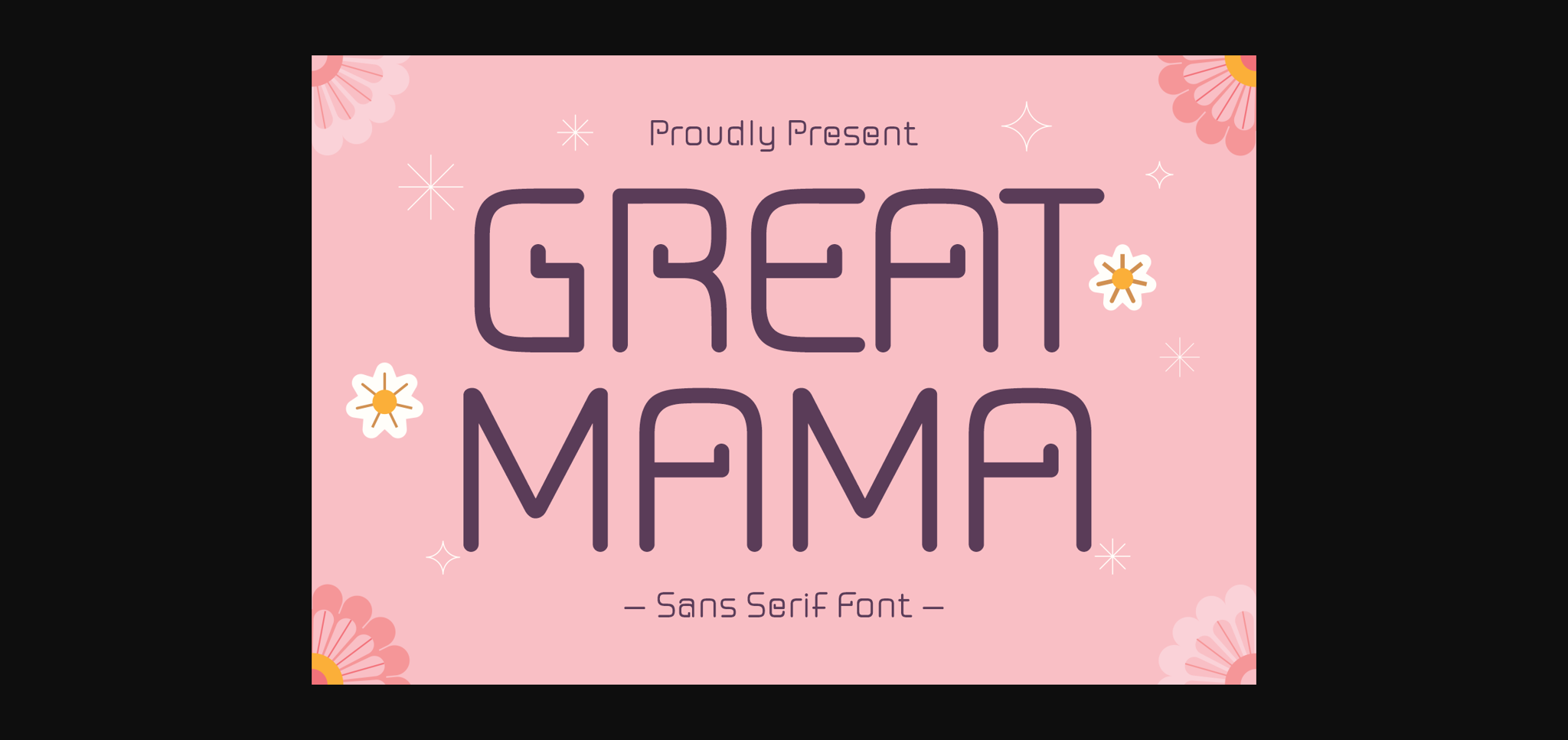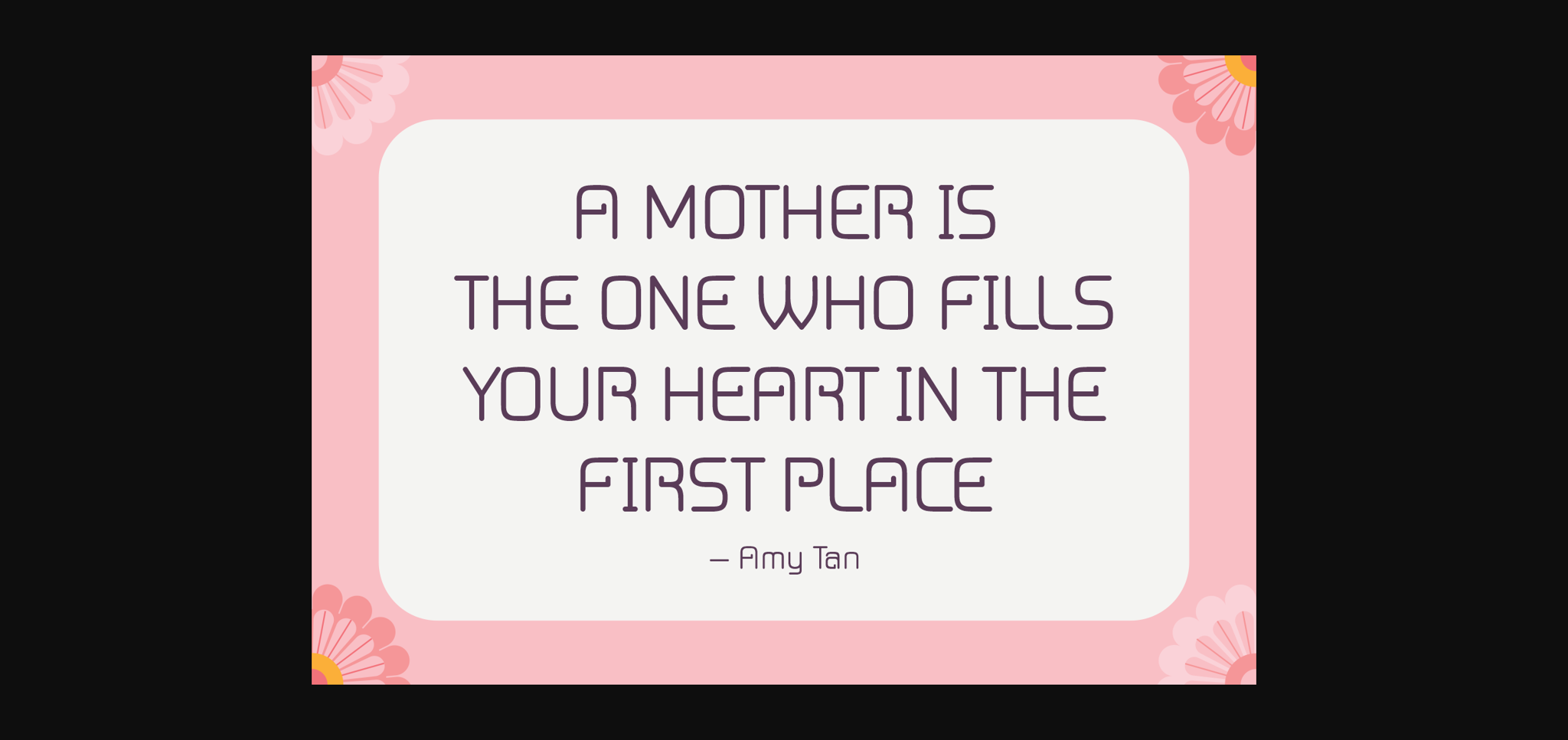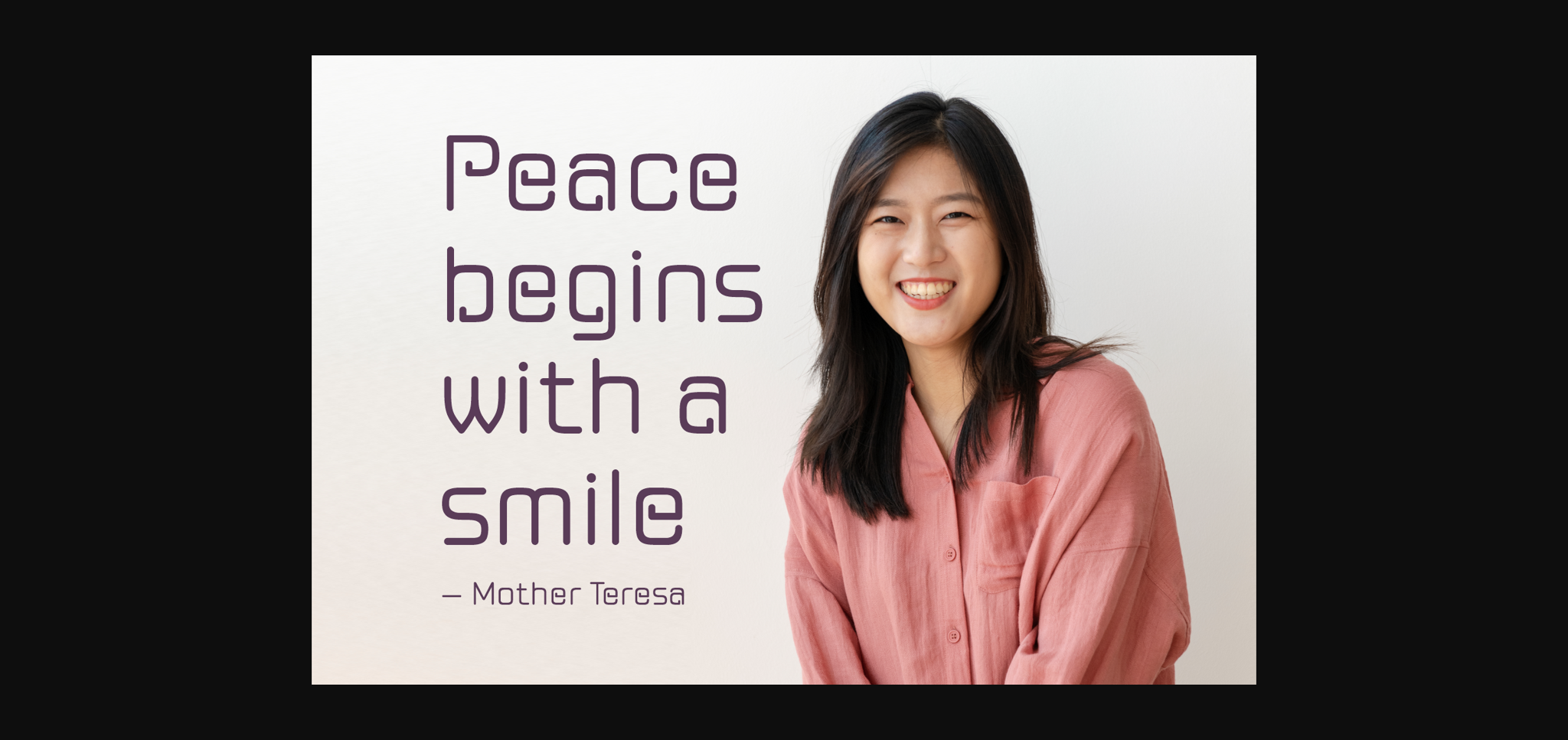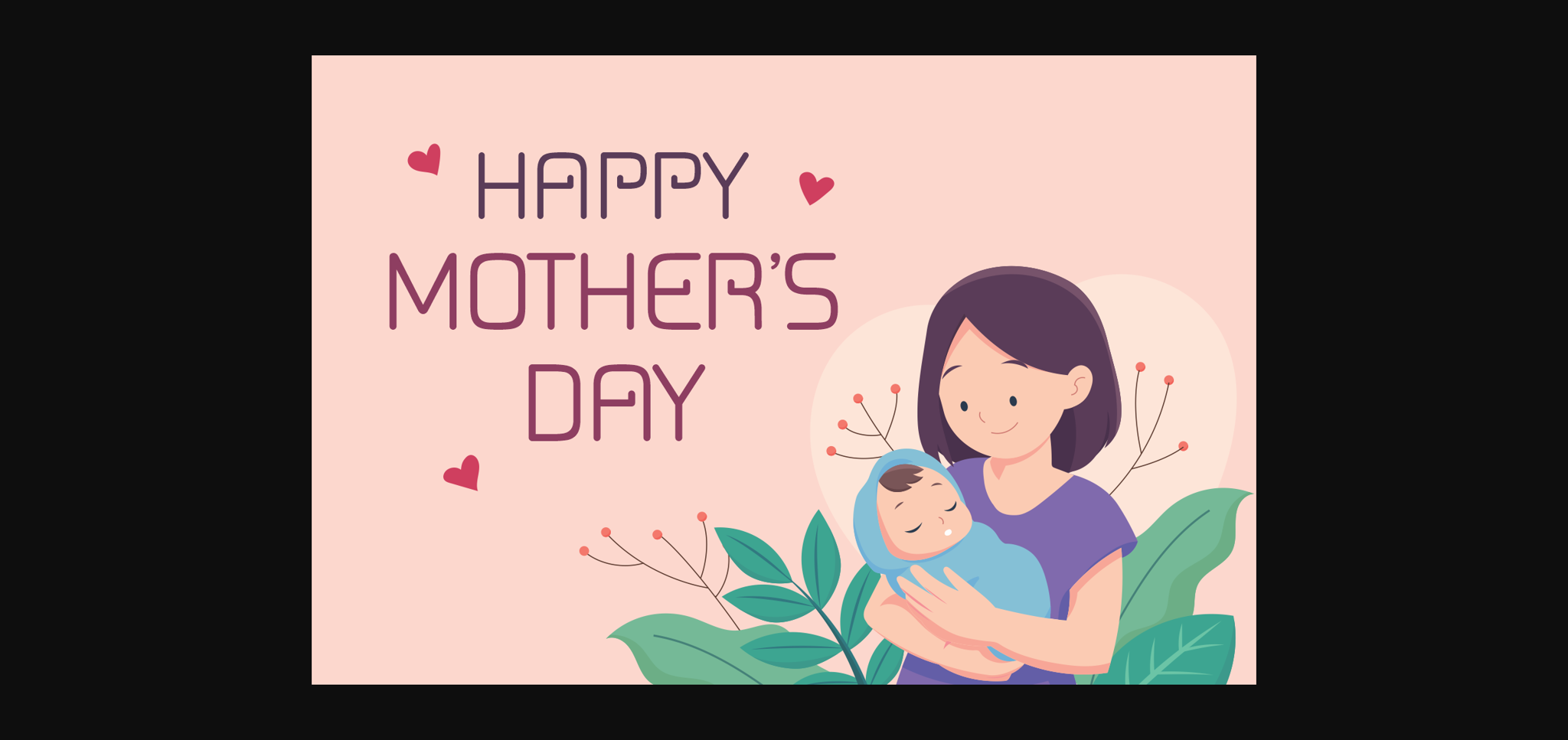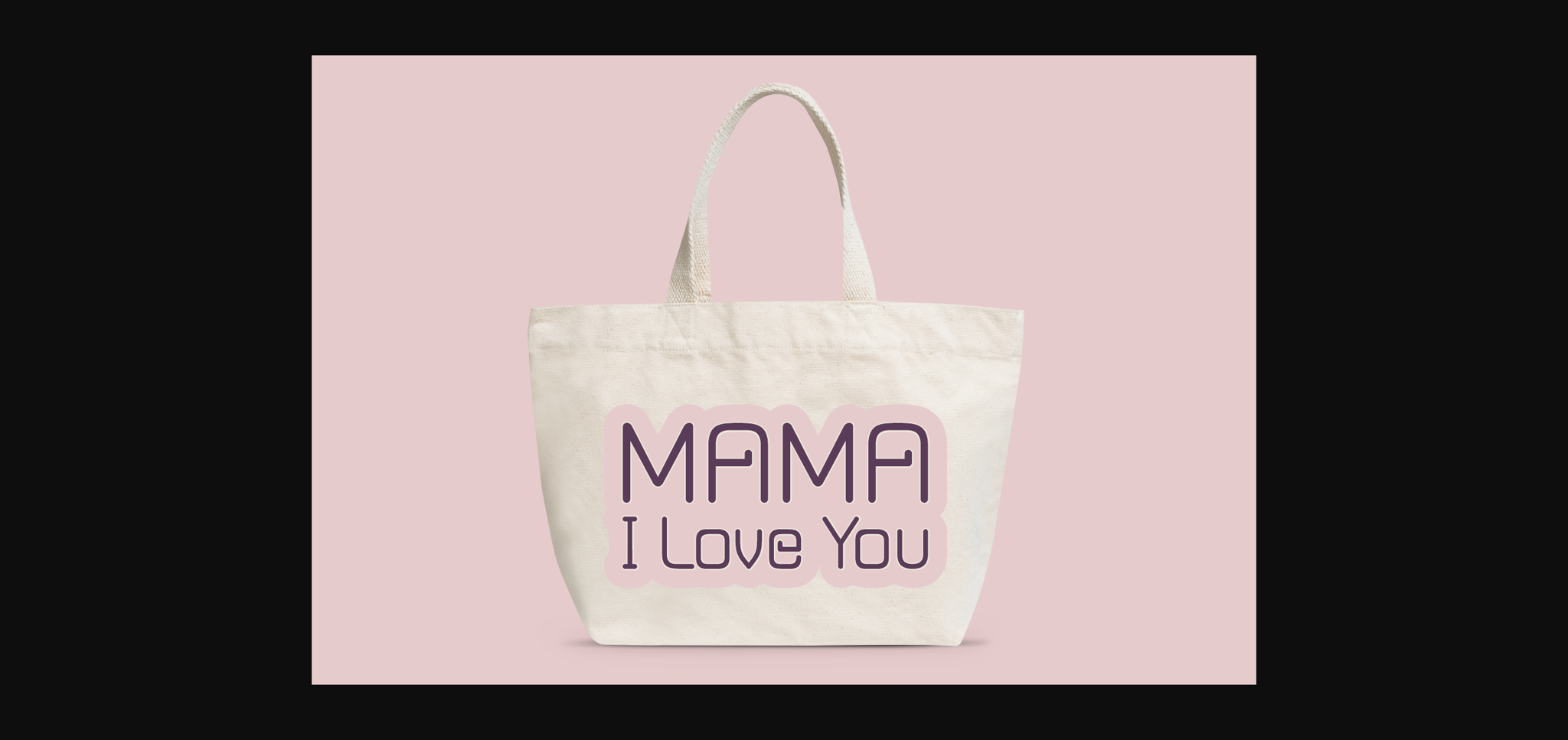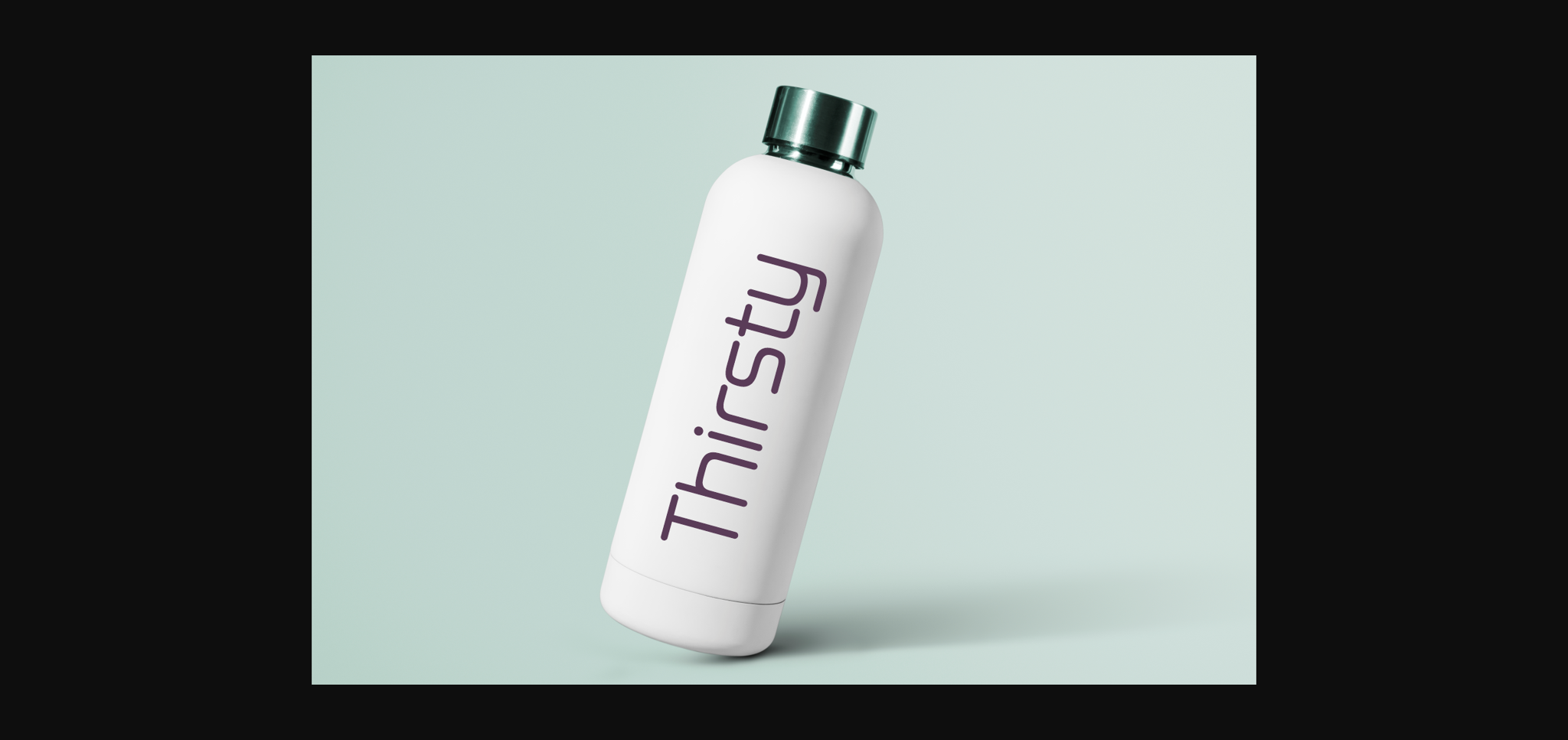
Great Mama Font
About Great Mama Font
Great Mama is a clean and modern sans serif font. It’s straightforward and easy to use, perfect for various projects. Whether you’re creating posters, logos, or anything else, Great Mama adds a touch of professionalism to your text. With its simple yet elegant style, it’s sure to elevate your design effortlessly.